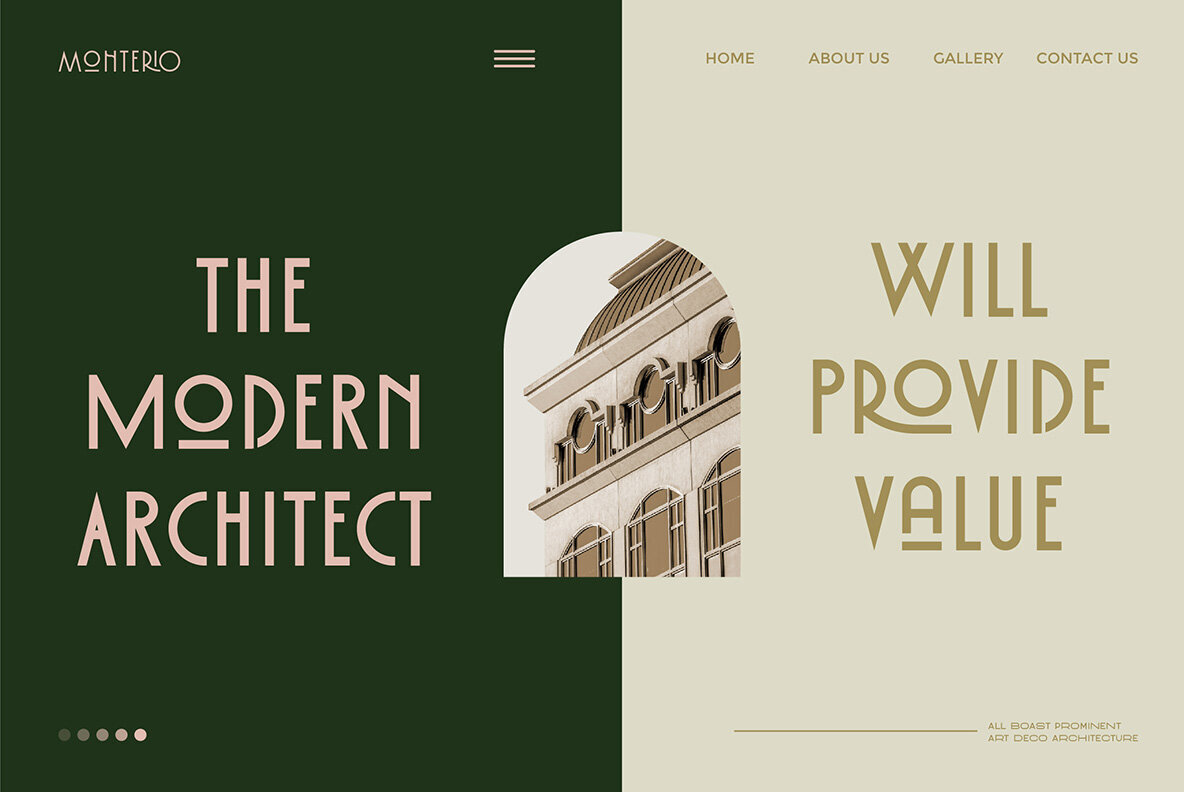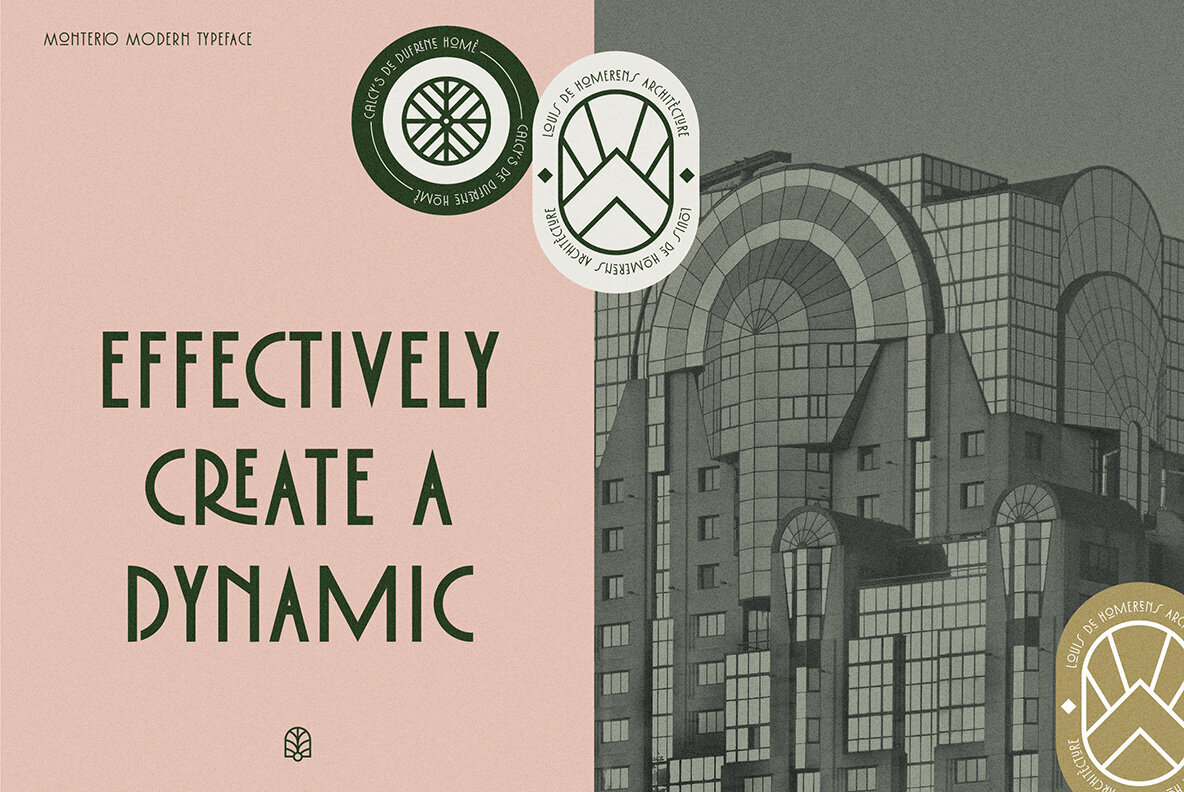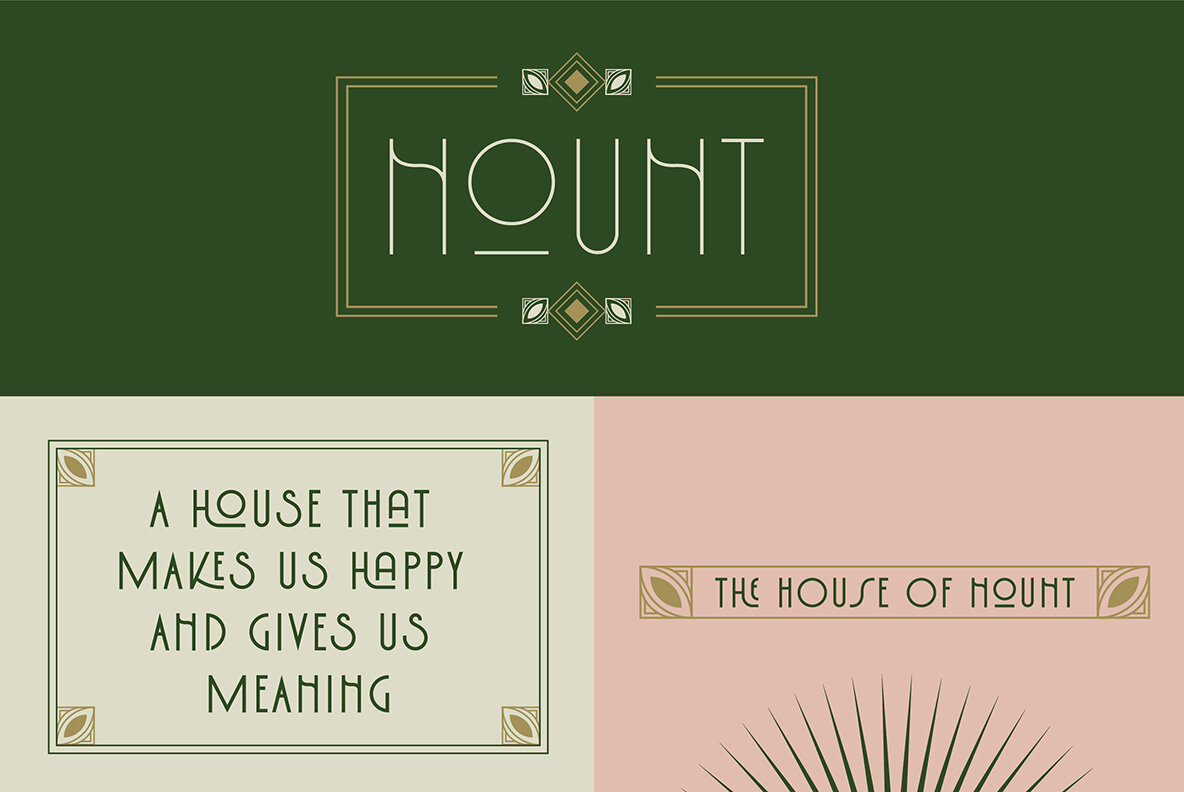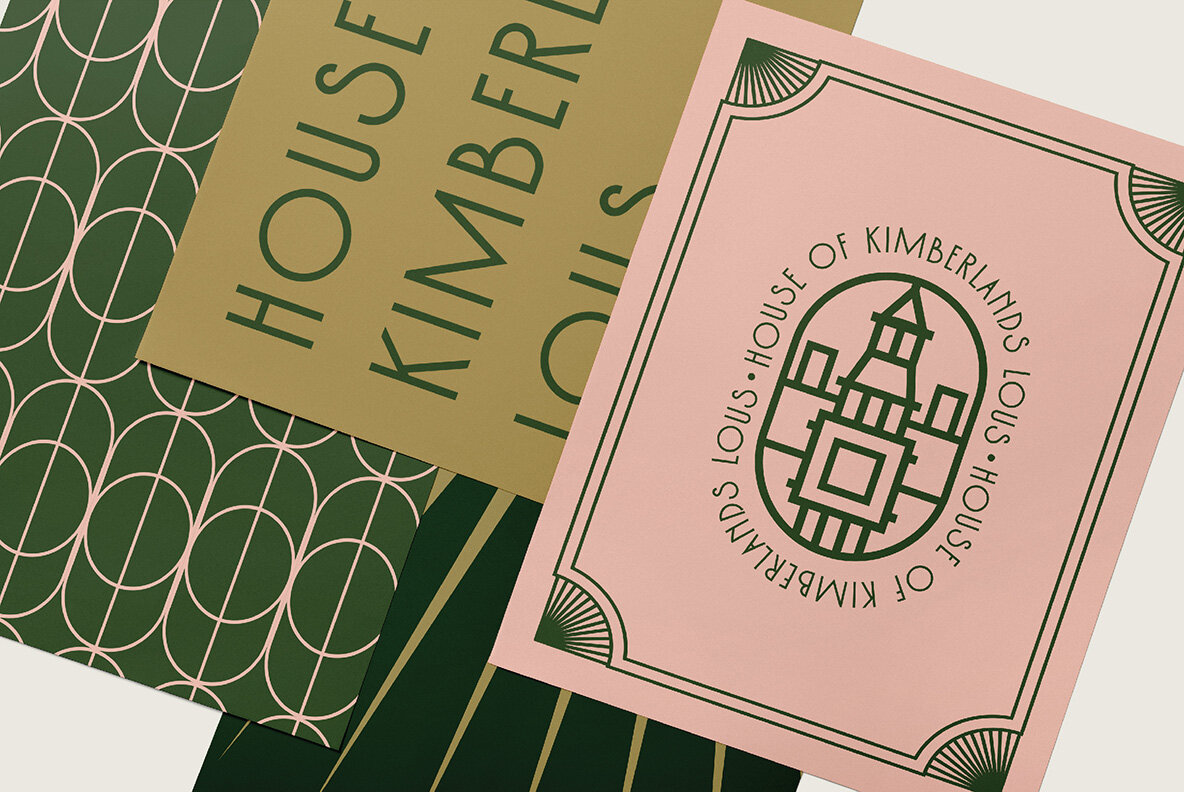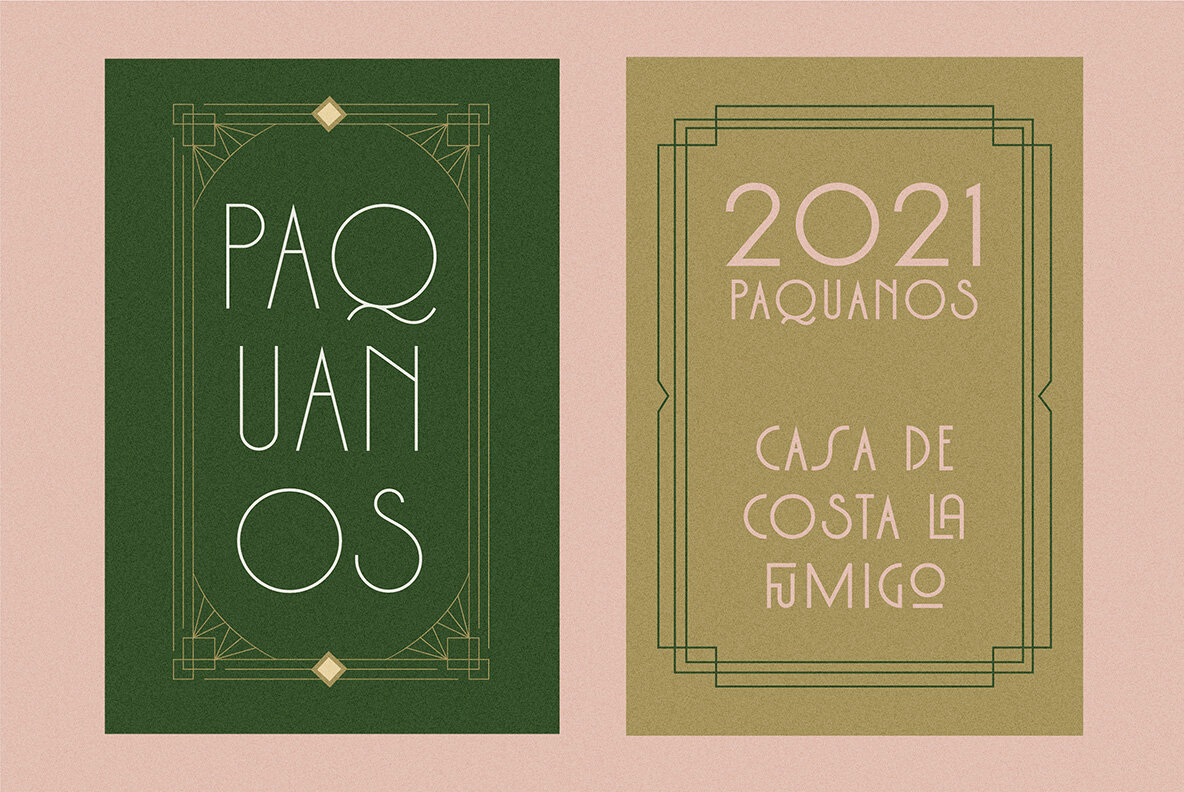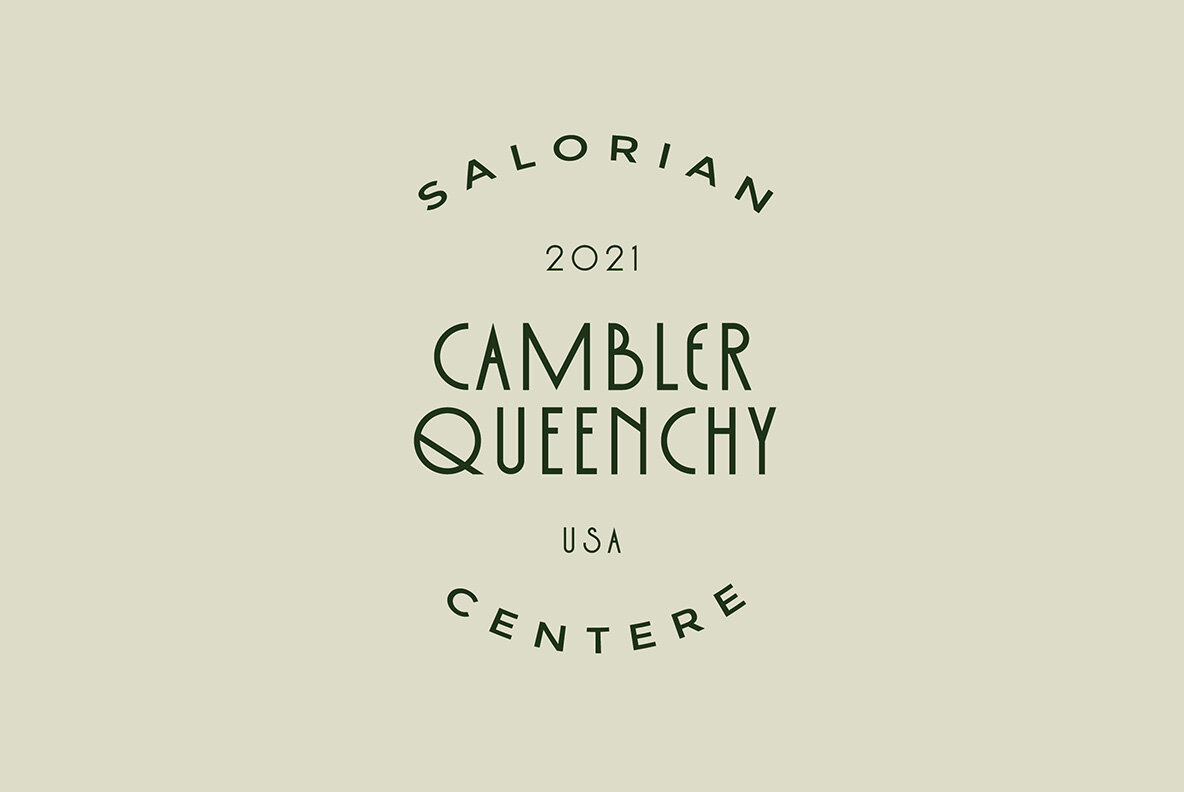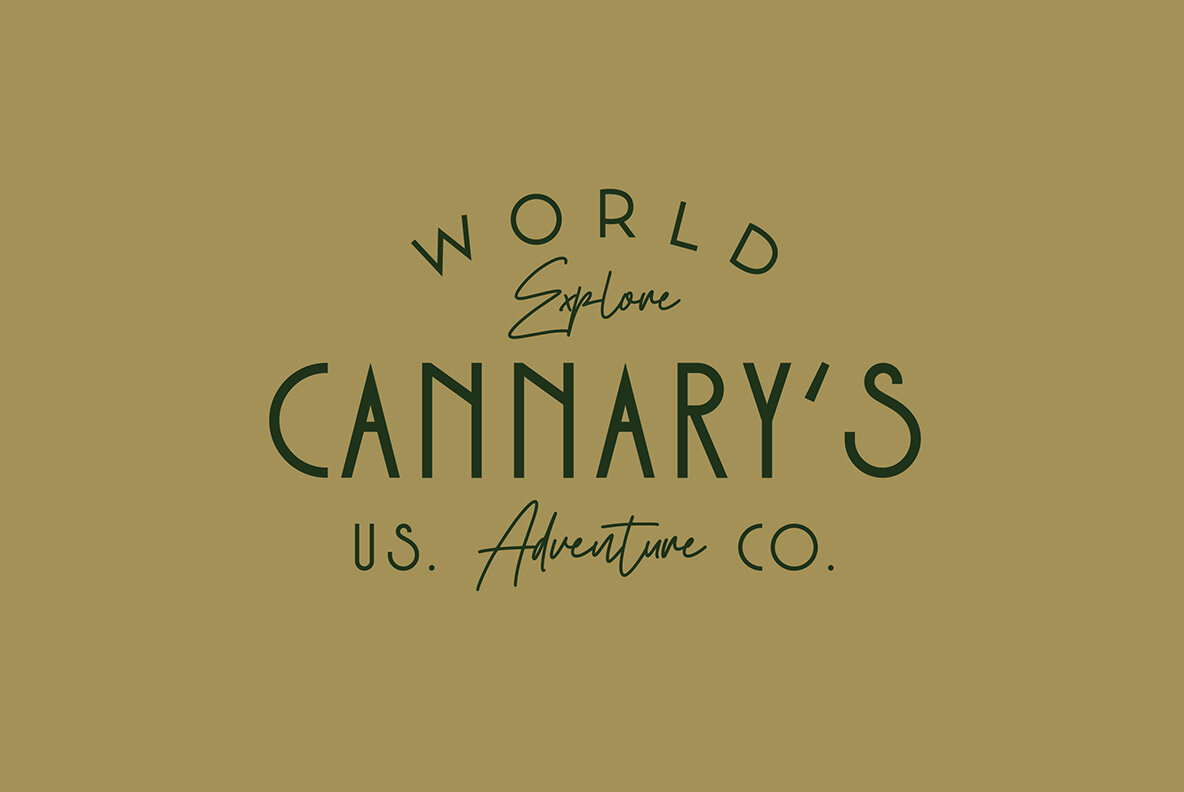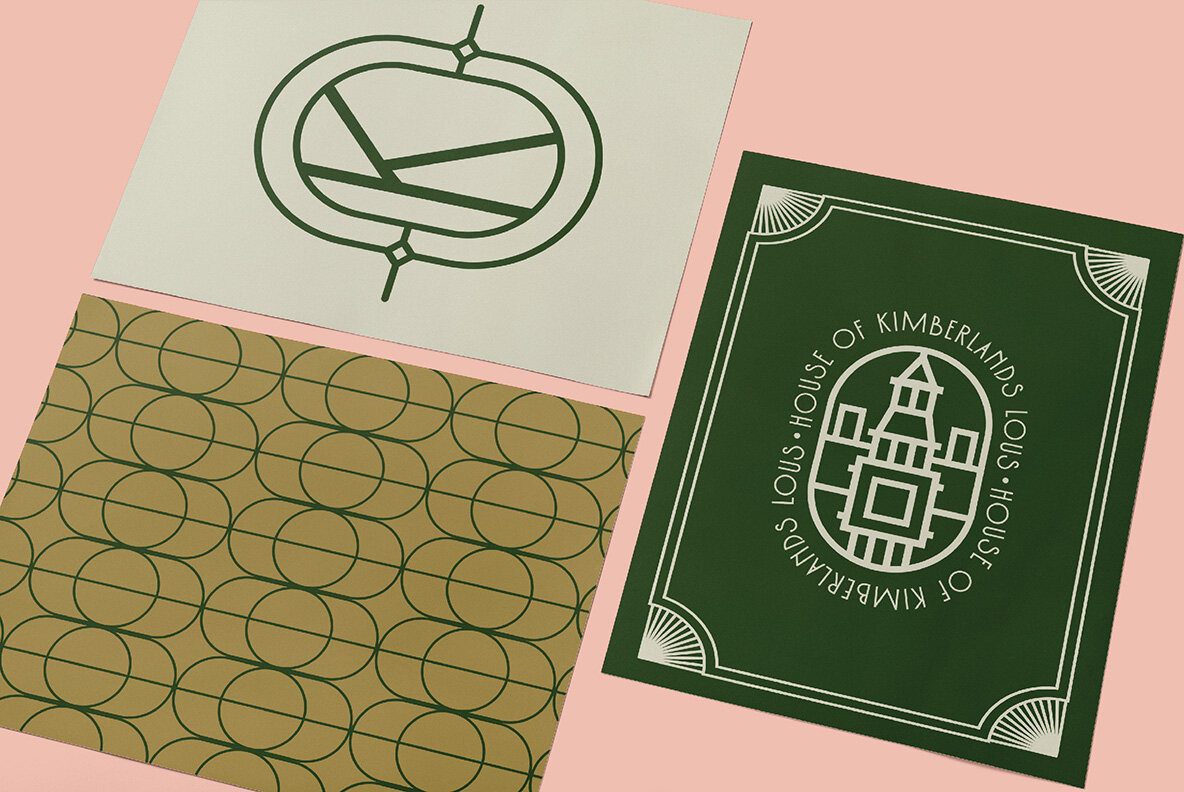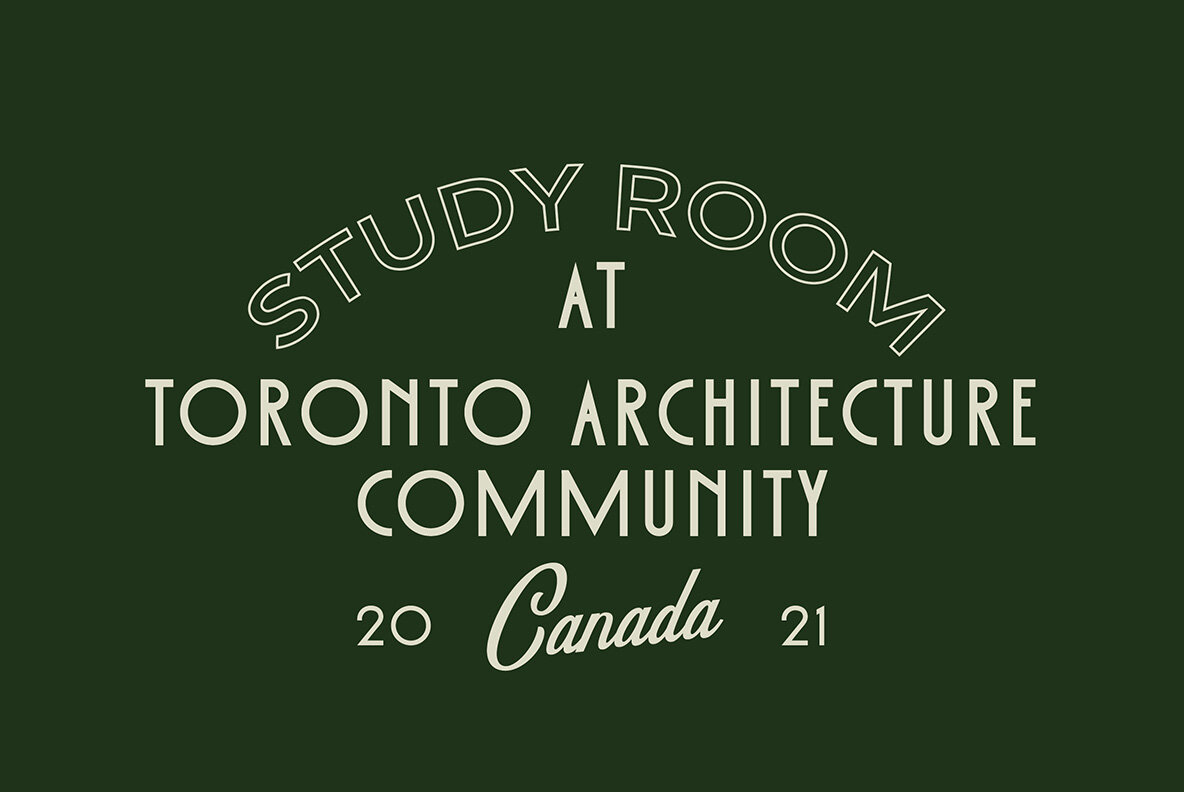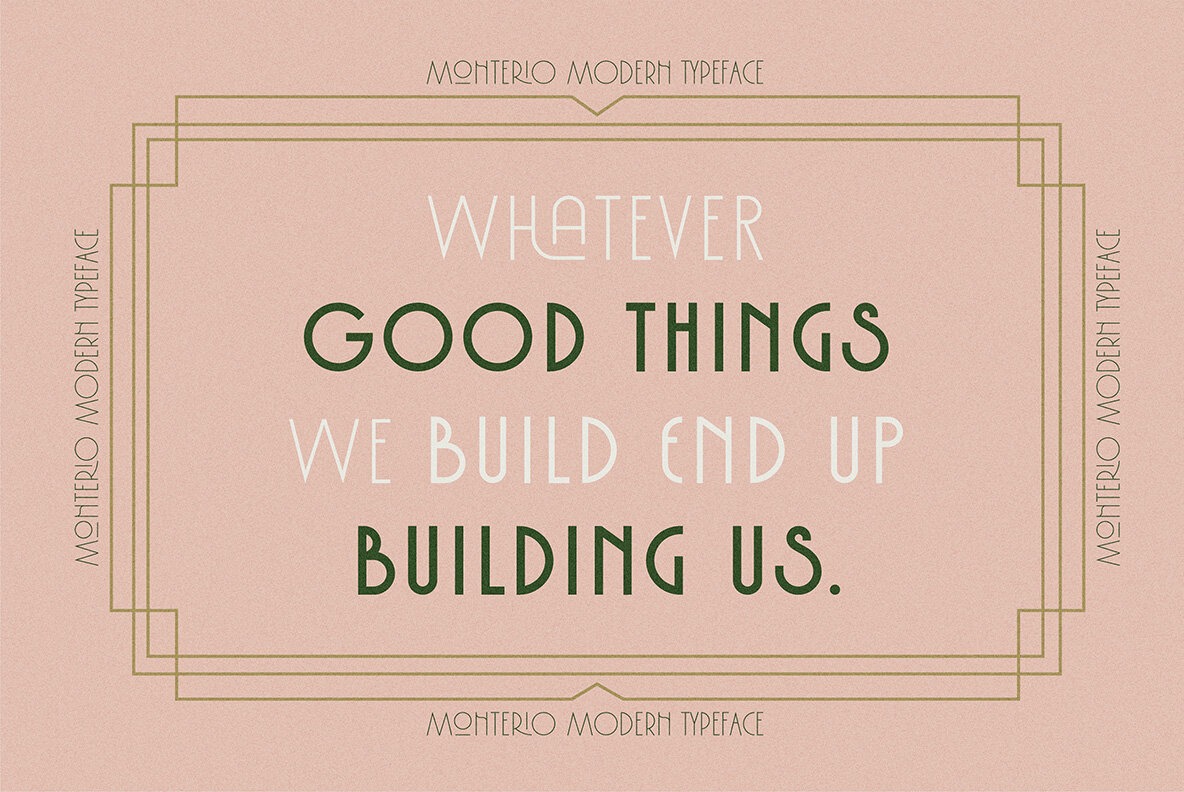
Monterio Font
Monterio Sans is a contemporary typeface that features the all-caps, art deco style. It's perfect for people who love classic/vintage letter designs and have 300+ glyphs (including alternate characters) to explore!
- 4 Weights font
- Stylistic Alternates & Ligatures